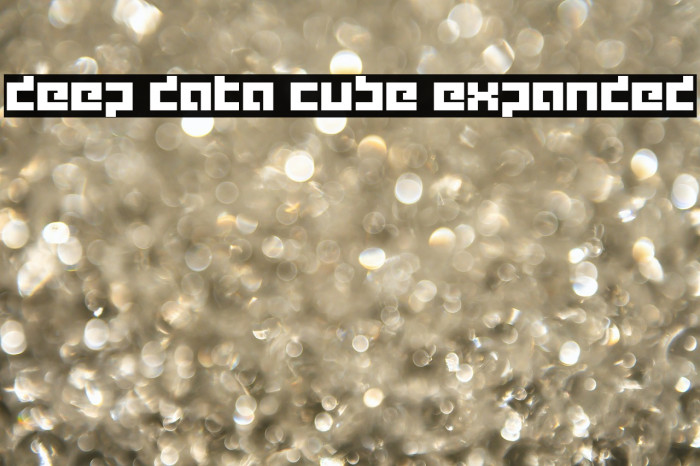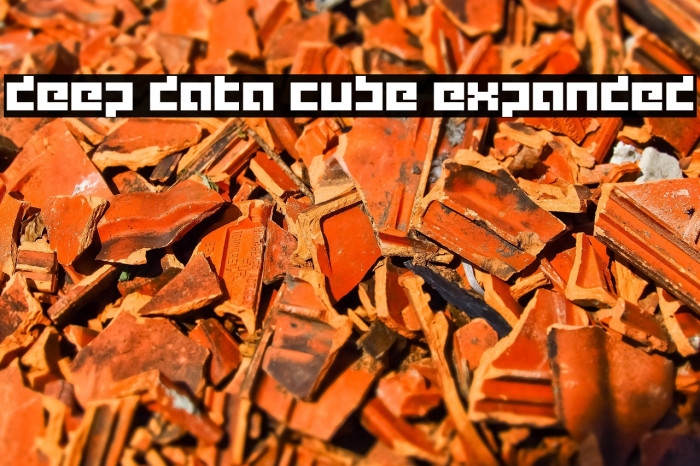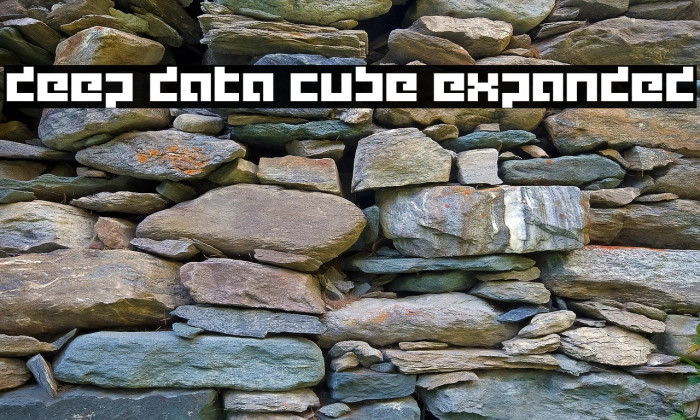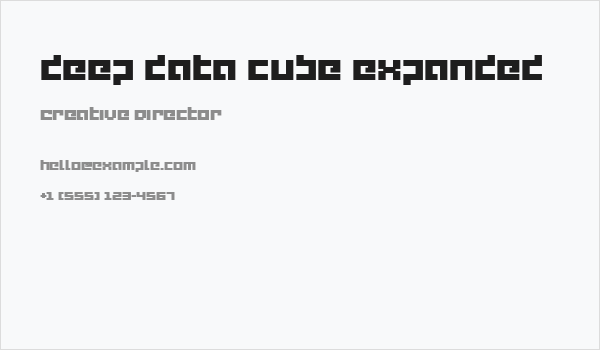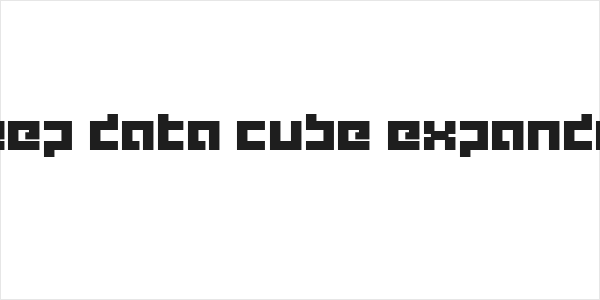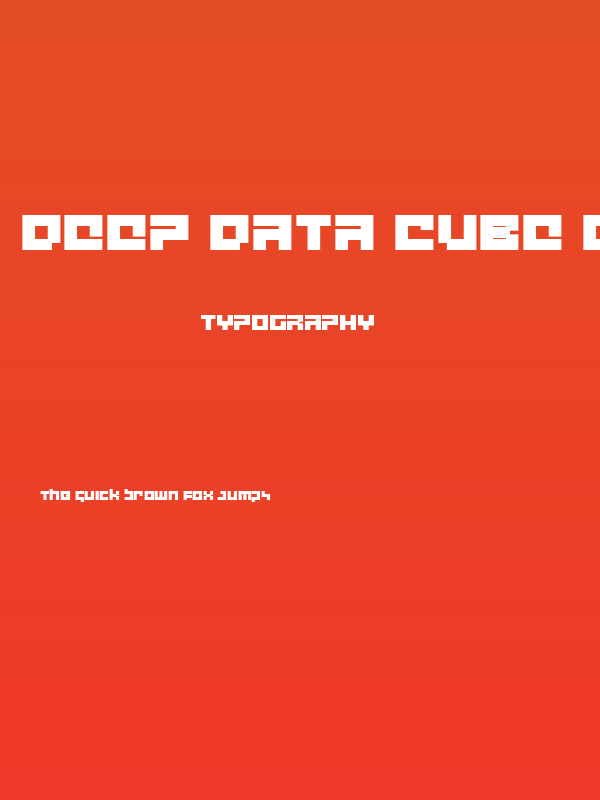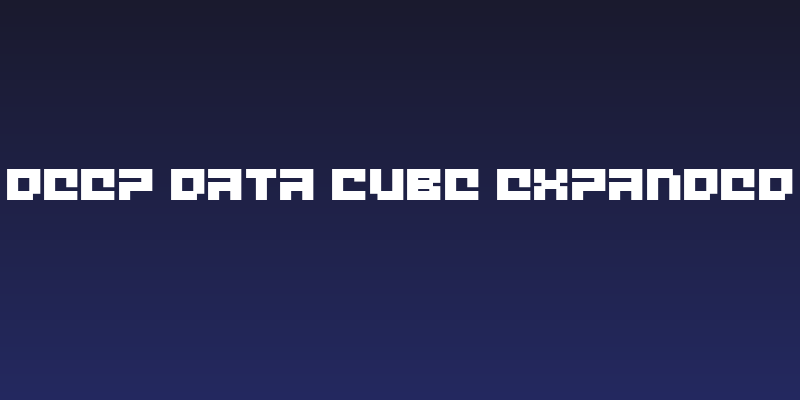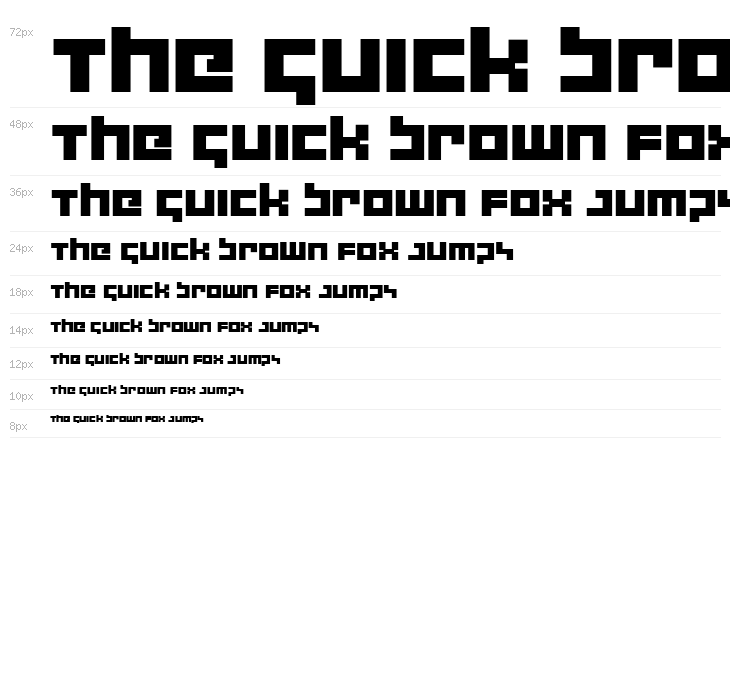
deep data cube expanded Font
deep data cube expanded Description
This font features a bold, geometric design with a distinctly digital aesthetic. Each character is constructed with sharp, angular lines and blocky shapes, creating a futuristic and tech-inspired look. The uniformity in the height and width of the characters contributes to a cohesive and structured appearance. The font's style is reminiscent of early digital displays or pixel art, making it ideal for projects that require a modern, technological feel. The characters are evenly spaced, ensuring readability while maintaining the font's unique style.
| Use Case | Logos, Headlines, Digital Art |
| Proposed Projects | Ideal for tech-related branding, video game graphics, digital art projects, and futuristic-themed designs. |